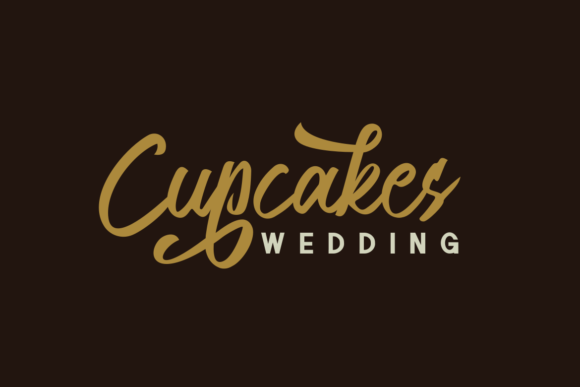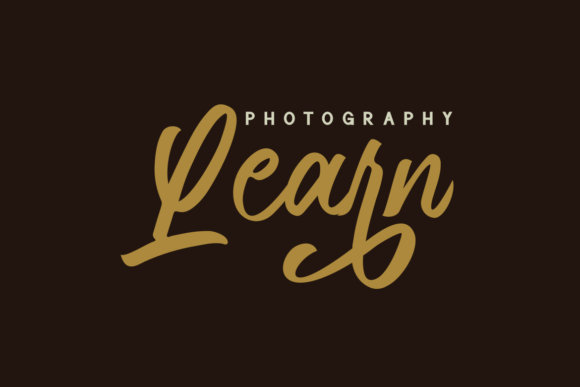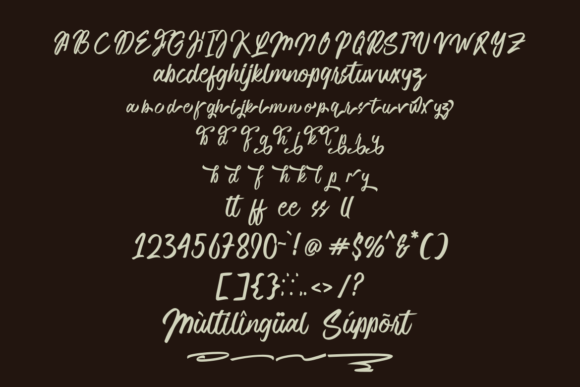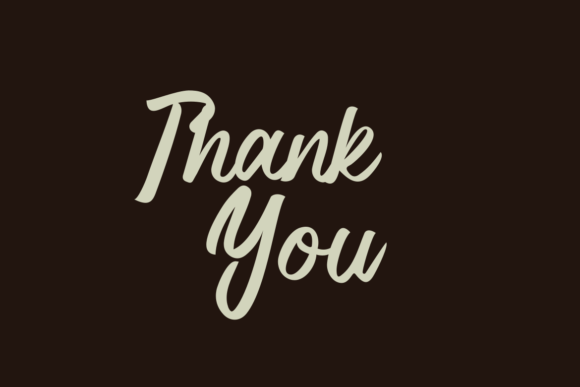
Introducing Frugal Font: Elevate Your Designs with a Stylish and Confident Touch
Are you on the hunt for a font that can add a dash of sophistication and personality to your design projects? Look no further than Frugal Font, a stunning cursive and thick lettered handwritten font that’s perfect for headlines, logotypes, and more. In this article, we’ll dive into the features and benefits of Frugal Font, and explore how it can take your designs to the next level.
A Strong, Confident, and Dynamic Font
Frugal Font is a masterfully crafted font that’s designed to give your designs a strong, confident, and dynamic feel. Its unique blend of cursive and thick lettering creates a sense of movement and energy, making it perfect for designs that need to grab attention. Whether you’re working on a logo, headline, or social media graphic, Frugal Font is sure to make a lasting impression.
Add a Touch of Nostalgia to Your Designs
One of the standout features of Frugal Font is its ability to add a touch of nostalgia to your designs. Its classic, handwritten feel evokes memories of traditional printing and handwritten scripts, giving your designs a sense of warmth and character. This makes Frugal Font an excellent choice for designers and crafters who want to create designs that feel timeless and authentic.
Frugal Font is PUA (Private Use Area) encoded, which means that you can access all of the glyphs and swashes with ease. This makes it simple to customize your designs and add unique touches that set your work apart. With Frugal Font, you can easily access a wide range of characters, including ligatures, alternates, and swashes, giving you endless possibilities for creative expression.
Frugal Font is an excellent choice for designers and crafters who want to add a professional touch to their work. Its versatility and range make it suitable for a wide range of design projects, from logos and branding to social media graphics and packaging. Whether you’re a seasoned designer or just starting out, Frugal Font is a valuable addition to your font library.
Use Frugal Font in a Variety of Projects
Frugal Font is a versatile font that can be used in a variety of projects, including:
- Logos and branding: Create a lasting impression with a custom logo that showcases your brand’s personality and style.
- Headlines and titles: Add a touch of sophistication and elegance to your headlines and titles with Frugal Font’s unique cursive and thick lettering.
- Social media graphics: Stand out on social media with eye-catching graphics that feature Frugal Font’s bold and dynamic style.
- Packaging: Add a touch of personality to your packaging with Frugal Font’s unique and stylish lettering.
Tips for Getting the Most Out of Frugal Font
To get the most out of Frugal Font, here are a few tips to keep in mind:
- Experiment with different sizes and colors to find the perfect combination for your design.
- Use Frugal Font’s glyphs and swashes to add unique touches to your designs.
- Pair Frugal Font with other fonts to create a unique and eye-catching combination.
- Don’t be afraid to get creative and try new things – Frugal Font is a versatile font that’s perfect for experimenting with different design styles.
Frugal Font is a stunning cursive and thick lettered handwritten font that’s perfect for designers and crafters who want to add a touch of sophistication and personality to their designs. With its strong, confident, and dynamic feel, Frugal Font is sure to make a lasting impression. Its PUA encoding makes it easy to access a wide range of glyphs and swashes, giving you endless possibilities for creative expression. Whether you’re working on a logo, headline, or social media graphic, Frugal Font is an excellent choice for any design project.